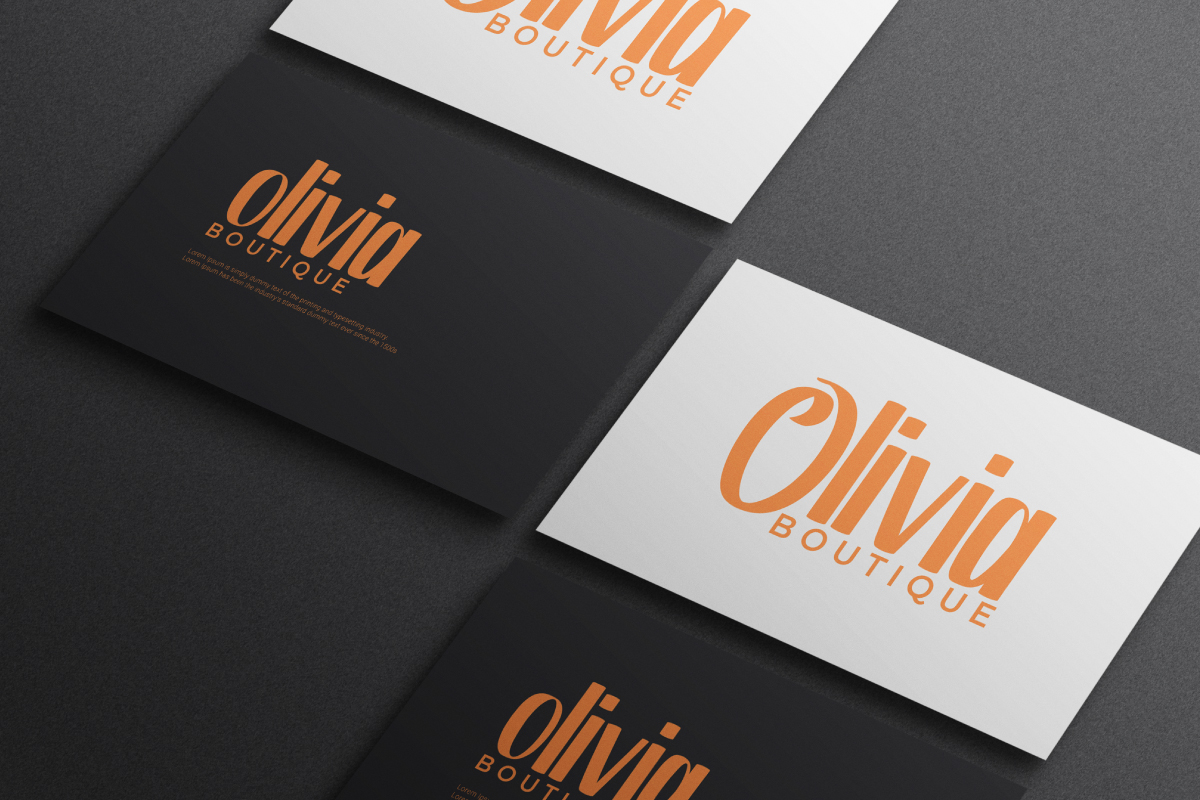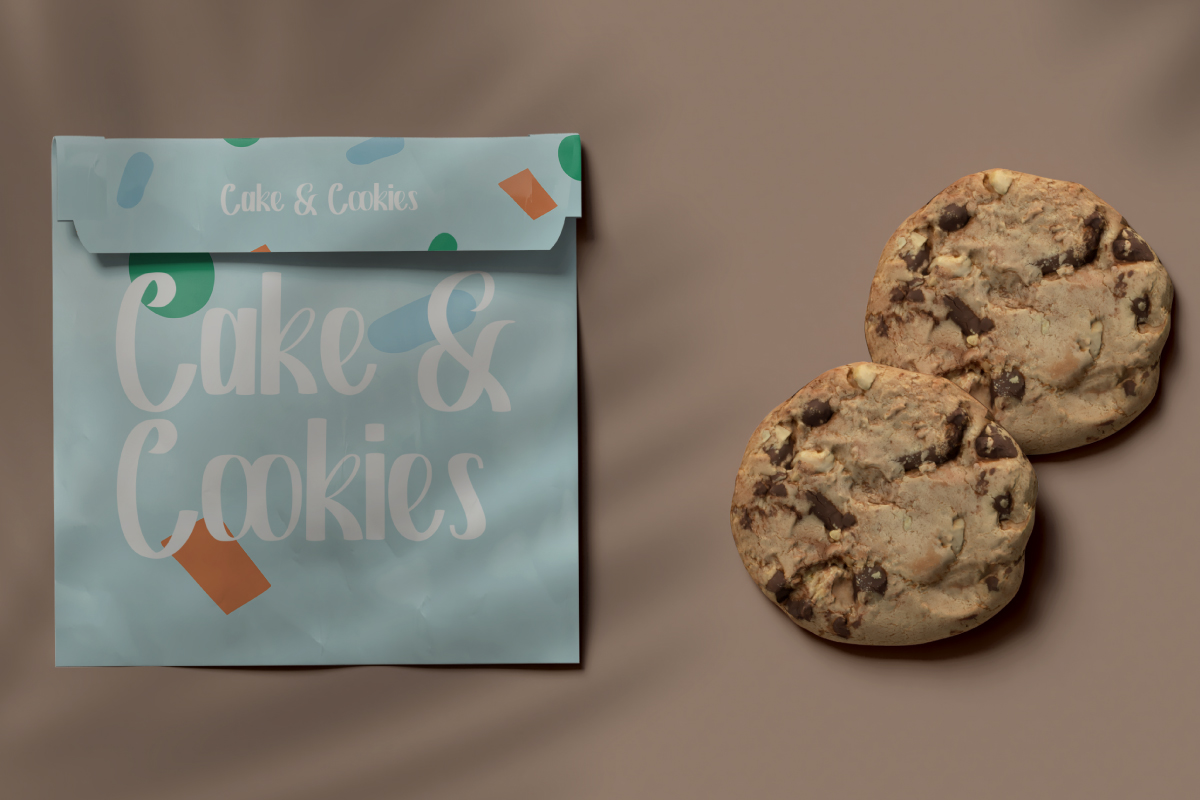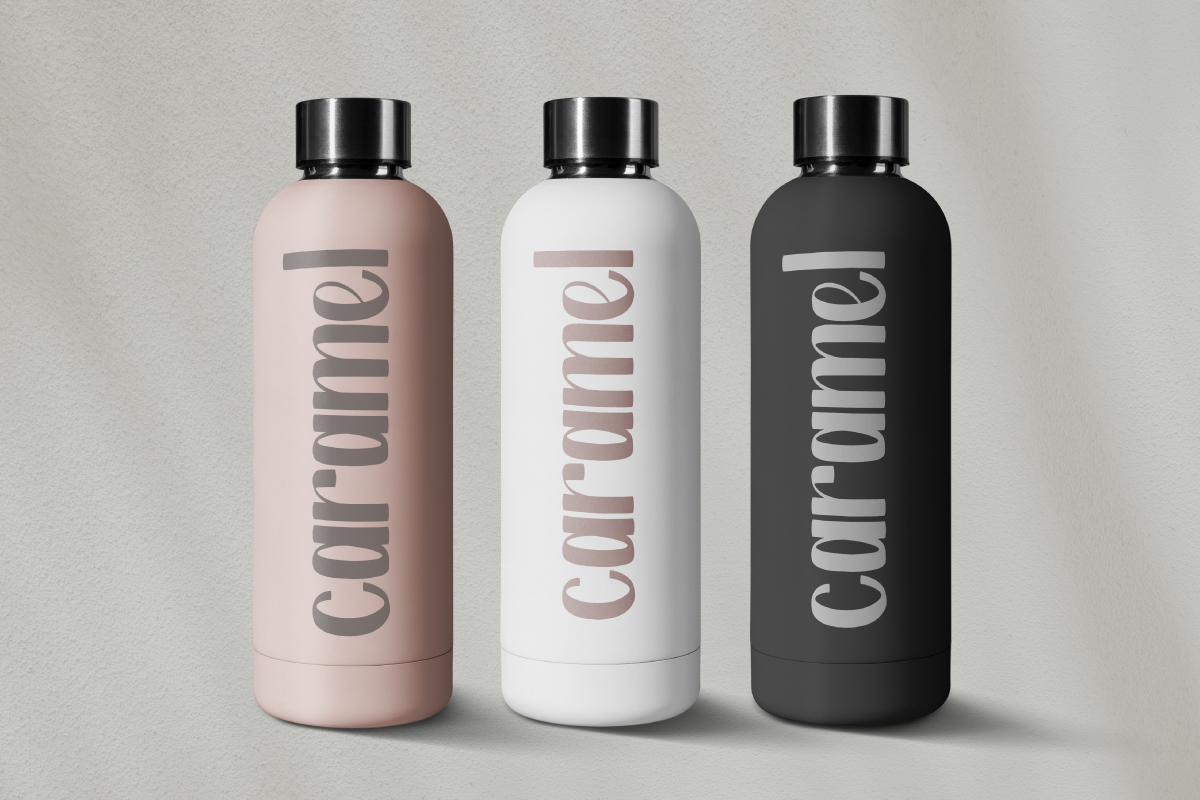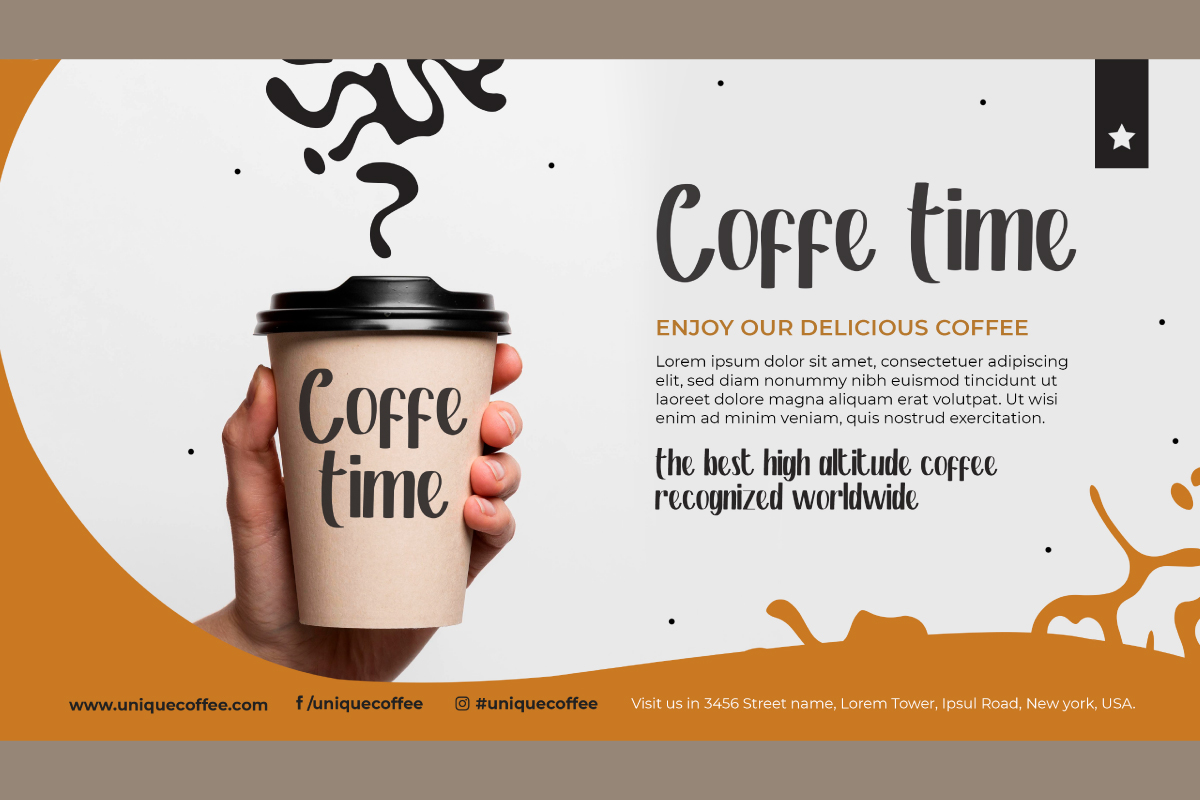
Hermando Font
Hermando Script Font
This is a font with handwriting look that has three different styles. Hermando will be awesome for business card, envelope, poster, product packaging etc. This font is crafted carefully in every its single letter so it is meant to emulate natural brush lettering with perfect for head-turning statements and eye-catching look!
Hermando Font includes full set of Uppercase and Lowercase Basic Characters, Numerals and Punctuation. This font also it contains alternatives to make it flawless set font characters to perfectly make awesome look that add more aesthetic to perfect your extraordinary project.